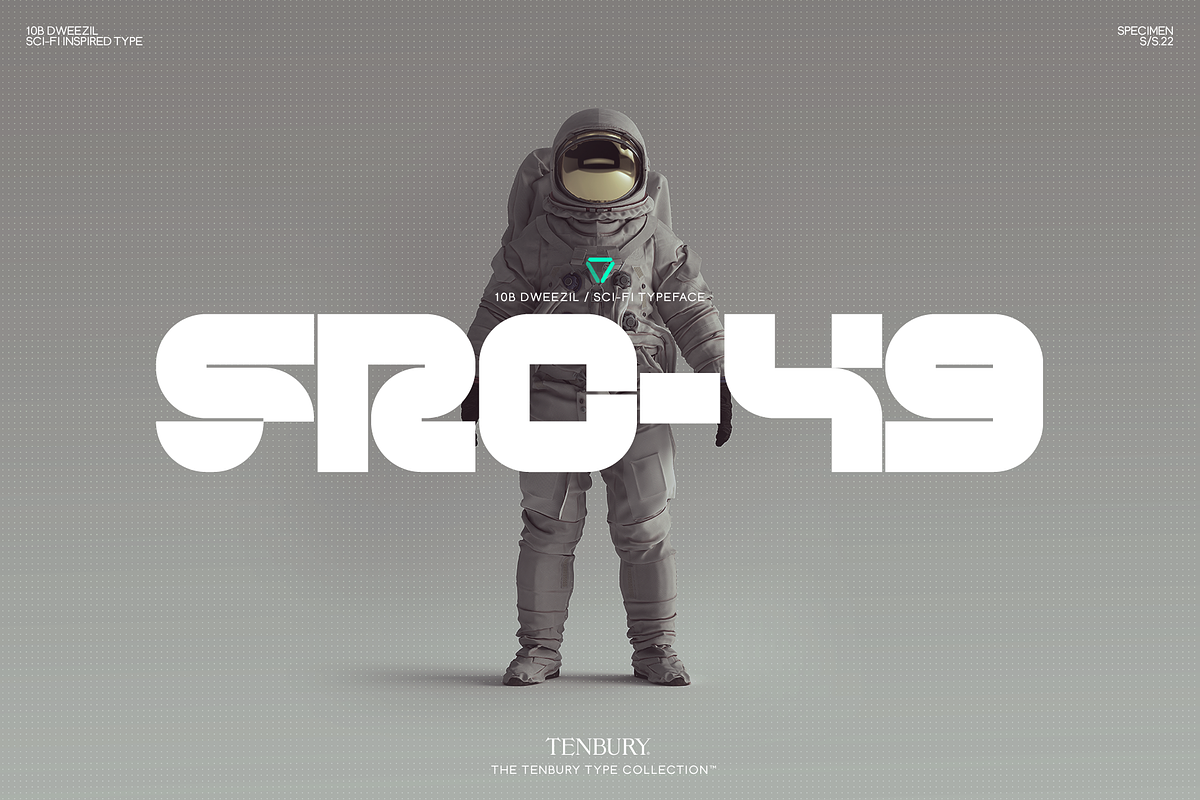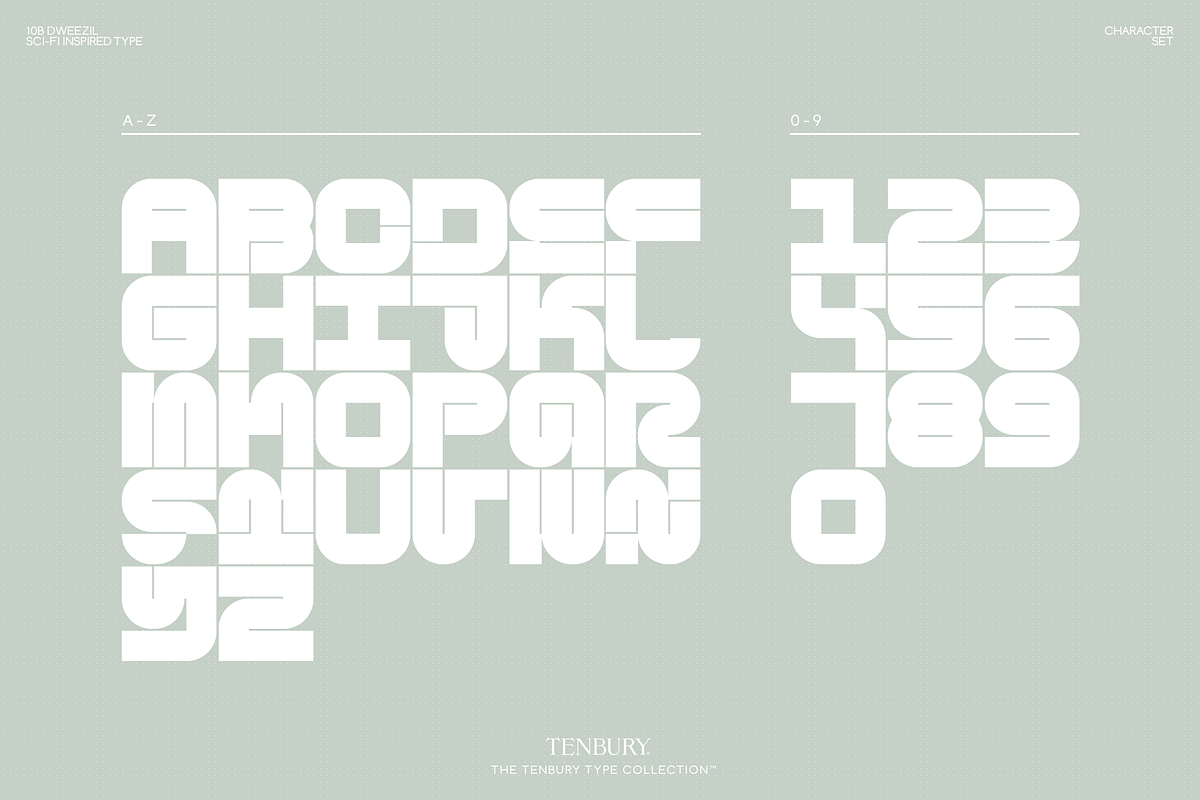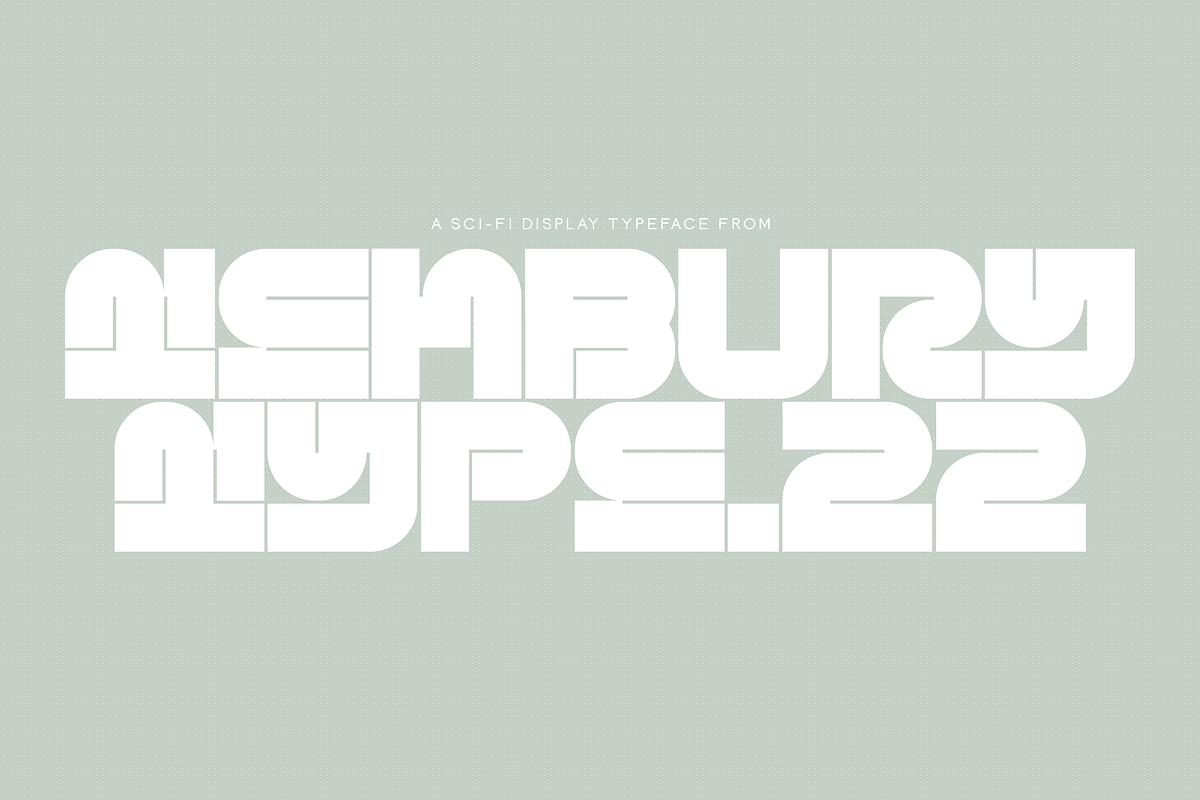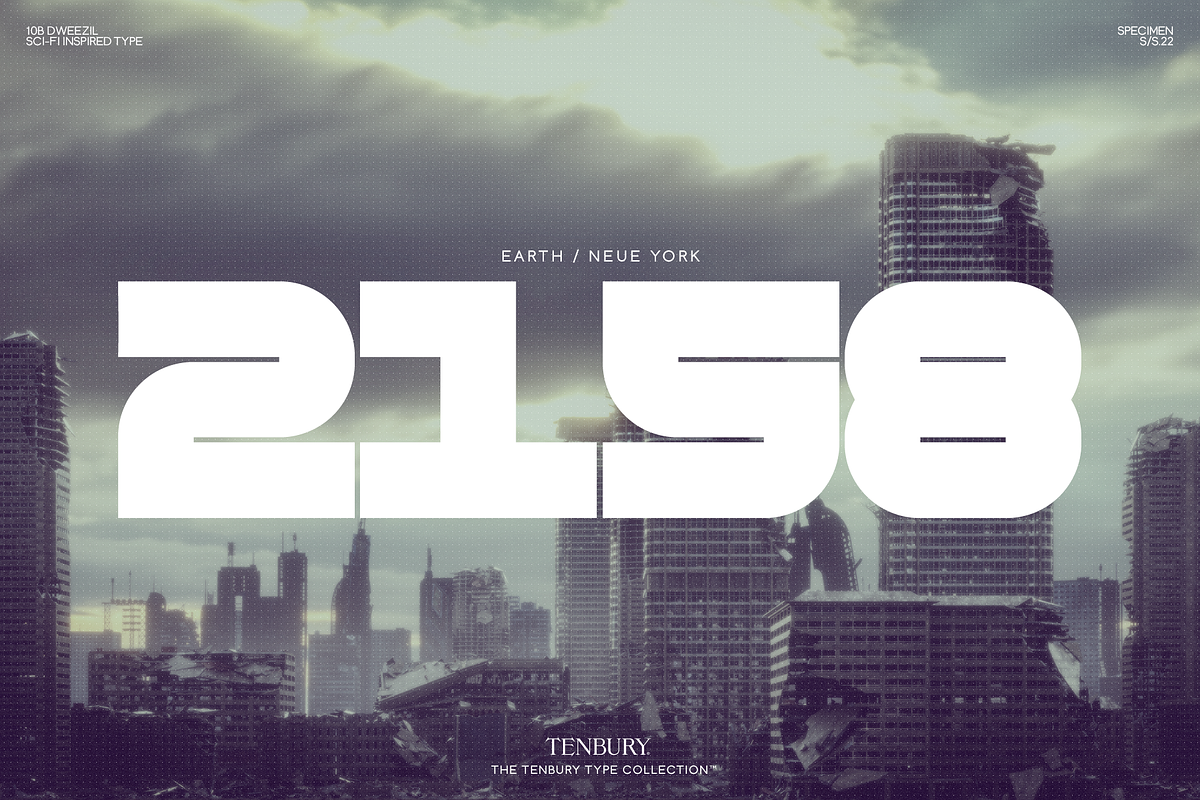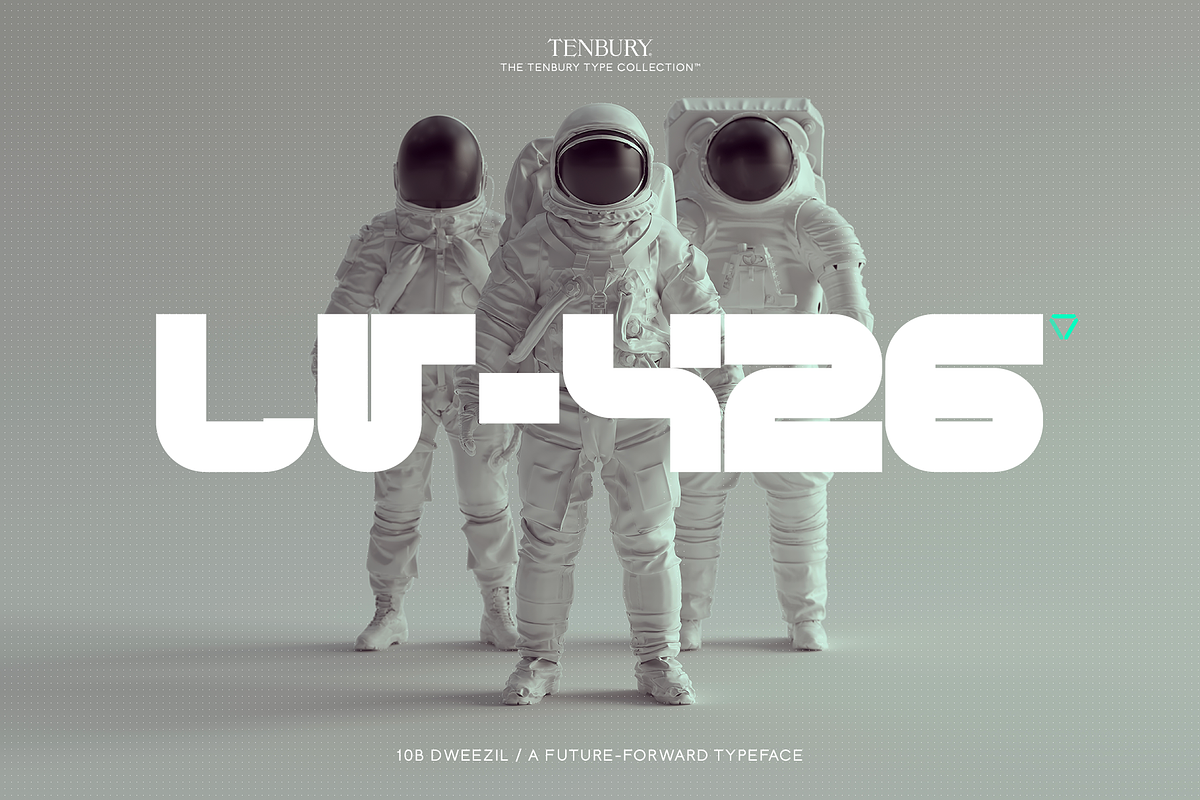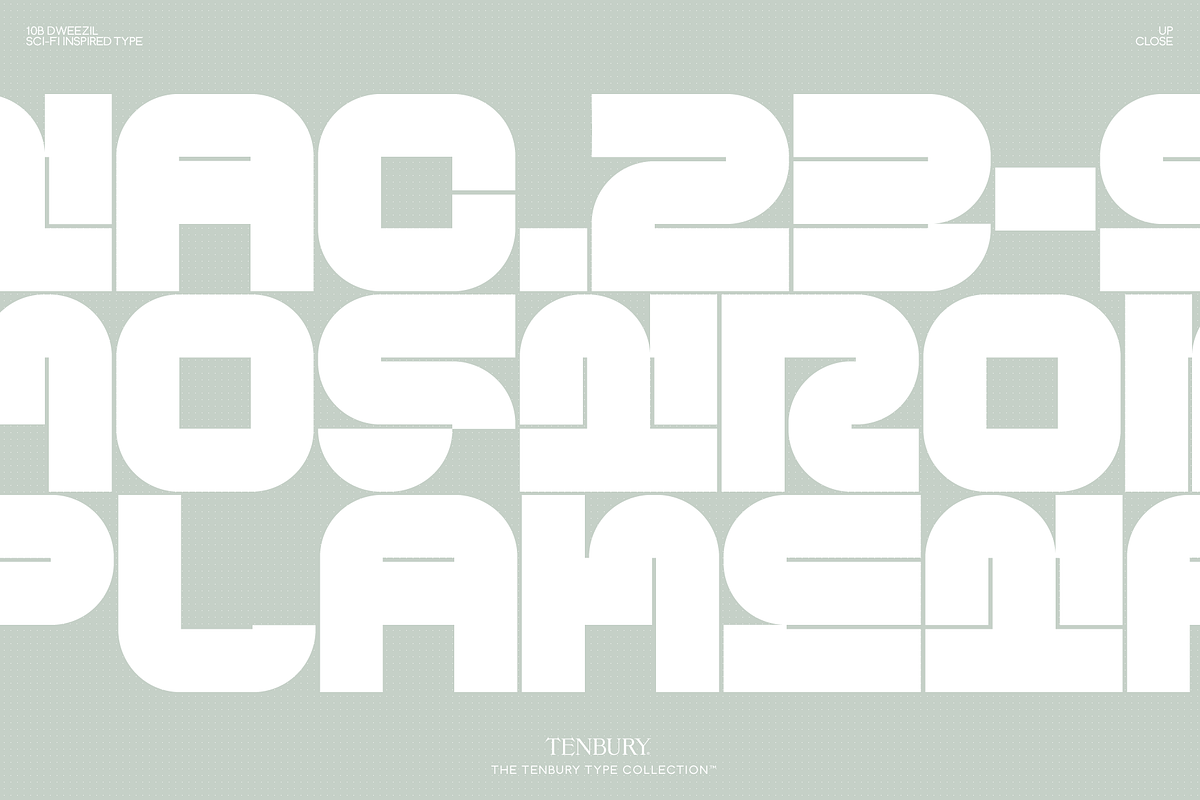
10B Dweezil: Futuristic Display Sans
10B Dweezil is a funky, future-forward typeface set up perfectly any sci-fi space thriller. If you're a fan of futuristic fonts, this one is for you!
- Uppercase & Numerals.